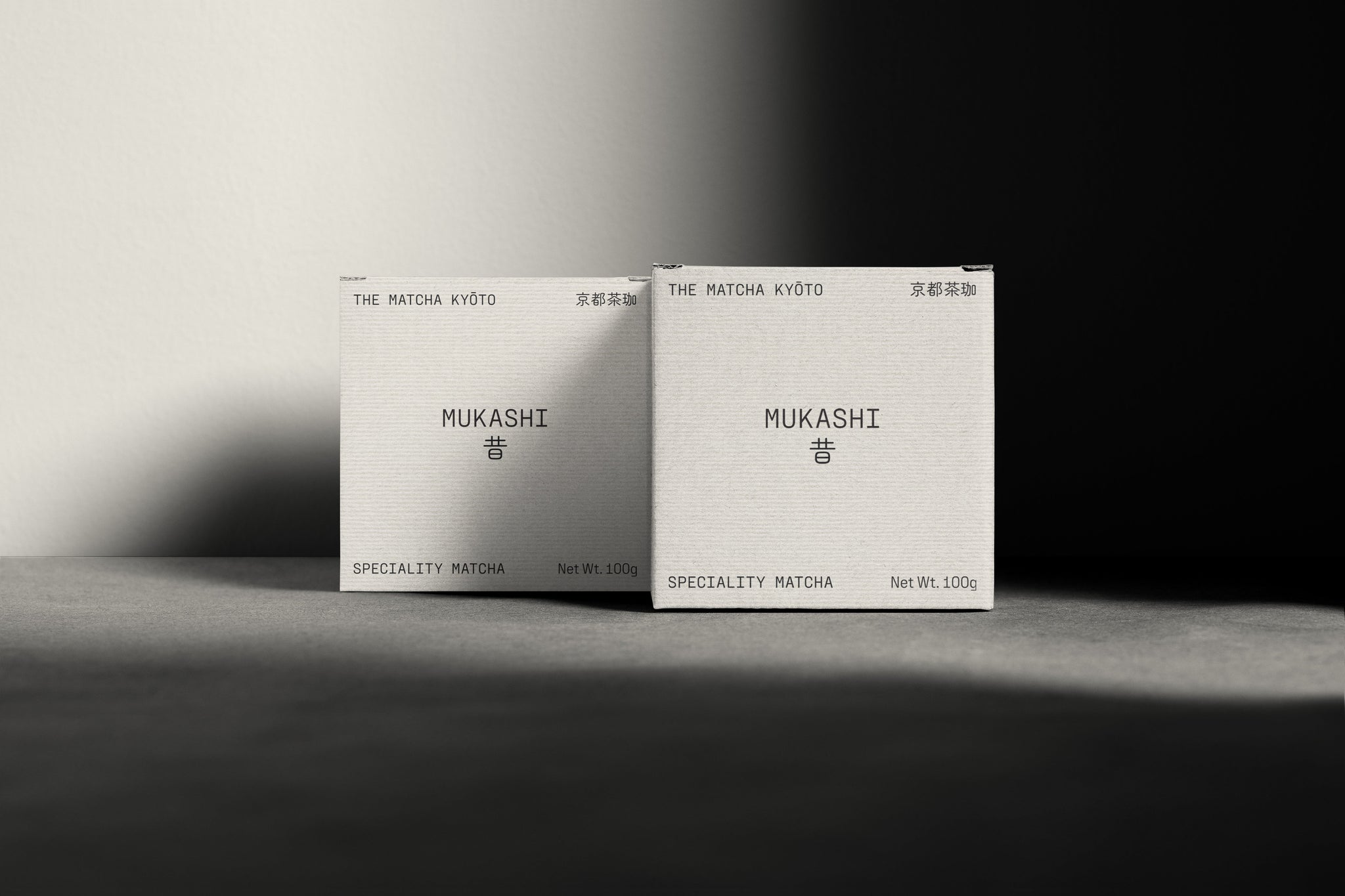
Matcha branding tends to follow a familiar formula. Vibrant greens dominate the palette, whisks mid-motion fill the frame, and the usual cast of bamboo, tea bowls and ceremonial gestures make their predictable appearance.
It often works, but it also means most matcha brands end up looking remarkably similar. When Other Studio began working with The Matcha Kyōto, Creative Director Samuel Gadd knew the path forward required restraint rather than decoration.
The Matcha Kyōto exists to share the story of traditional matcha cultivation and ceremony with contemporary audiences – a bridge between Uji’s centuries-old tea fields and modern appreciation for craft. The brief asked for an identity that honours this heritage whilst expressing modernity, something that felt “calm, timeless and rooted in Japanese tea traditions, yet shaped through a modern lens,” as Gadd describes it.
The challenge wasn’t just aesthetic. “We wanted to move away from the familiar visuals often seen in matcha and Japanese tea brands,” Gadd explains. He’s careful to note they’re not dismissing recent work in the category – there are beautiful matcha identities out there. But The Matcha Kyōto needed to feel different. “By avoiding these cues, the brand could feel more timeless and grounded in the feeling we wanted to create.”
That ‘feeling’ emerged from research that prioritised philosophy over technique. Rather than studying the mechanics of tea-making, Other Studio delved into the principles beneath the process. “We looked into the history of Uji’s matcha-growing region, but rather than studying the tea-making techniques, we drew from the philosophy behind the process – patience, precision and respect for craft,” Gadd shares. This distinction shaped everything that followed.
Colour became the first decisive move. Rather than let green dominate, the palette draws from the material qualities woven through Japanese culture – the warm white of washi paper, the natural linen tone of shōji screens, the depth of black ink. “We didn’t want green to take centre stage – it’s everywhere in matcha branding and felt like the obvious route,” notes Gadd. “Instead, we created a palette that carries stillness and draws from the simple material qualities found in Japanese culture and everyday life.” Two subtle greens appear, but only as supporting elements. This inversion shifts the entire visual language away from product photography toward something more contemplative. The tones are natural and muted, chosen to evoke calm rather than vibrancy, allowing textures and typography to stand out.
The typography system carries this same balance of structure and ease. PP Fraktion Mono and Sans, both from Pangram, felt like a natural pairing. “They had the right character and lightness to fit the vision for the brand,” Gadd explains. The monospaced form of Fraktion Mono brings order and structure, whilst Fraktion Sans provides clear readability for longer passages, helping carry the brand’s storytelling. Together they reflect the balance at the heart of The Matcha Kyōto’s identity. The Kanji font required its own research. Other Studio spent time exploring Japanese design and Kanji typefaces that would work alongside PP Fraktion, ensuring the visual language felt culturally grounded rather than merely decorative. The selected typeface introduces a softer, more rounded quality that doesn’t directly match the Latin characters but finds harmony through subtle proportional similarities.
Unlike many contemporary identities built on rigid grids, the wordmark prioritises flexibility over fixed geometry. “The wordmark wasn’t built on a strict grid,” Gadd explains. “It was designed to feel adaptable across different uses, with the supporting Kanji characters helping to create balance and composition.” This system shifts between English and Japanese, horizontal and vertical formats, adapting to context whilst maintaining consistency and clarity. It’s an approach that reflects how the brand itself needs to move – between languages, between traditional and modern contexts, between ceremonial heritage and everyday use.
Photography and art direction focus on the ritual itself rather than the product. “The art direction focuses on preparing matcha – the peaceful surroundings, the textures of natural materials, and the quiet rhythm of the process,” Gadd describes. Soft natural light catches stone surfaces, gentle shadows define simple forms, minimal compositions create breathing room. Every element was considered to reflect the same care and attention found in the ritual itself.
The packaging extends this tactility through carefully chosen materials. Textured, uncoated stocks mirror the raw, organic qualities of stone-ground matcha. Subtle grain, soft shadows and fine lines create a surface quality meant to be felt as much as seen. “Each element of the identity was considered to evoke a sense of calm, craft and connection,” says Gadd. It’s a continuation of the brand’s visual language in physical form.
Founder Feifei Li describes the collaboration as transformative. “Samuel fully immersed himself in our company’s philosophy, striving to distill the most authentic and distinctive expression of our brand – without falling into the clichés that so many matcha brands succumb to,” Li shares. The founder notes how Gadd approaches each project “with patience and care, nurturing every design detail with such precision it’s almost breathtaking.” The chosen typeface, the tactile qualities, the overall design language all express heritage, classicism and cleanliness – qualities that, like matcha-making itself, will remain timeless.